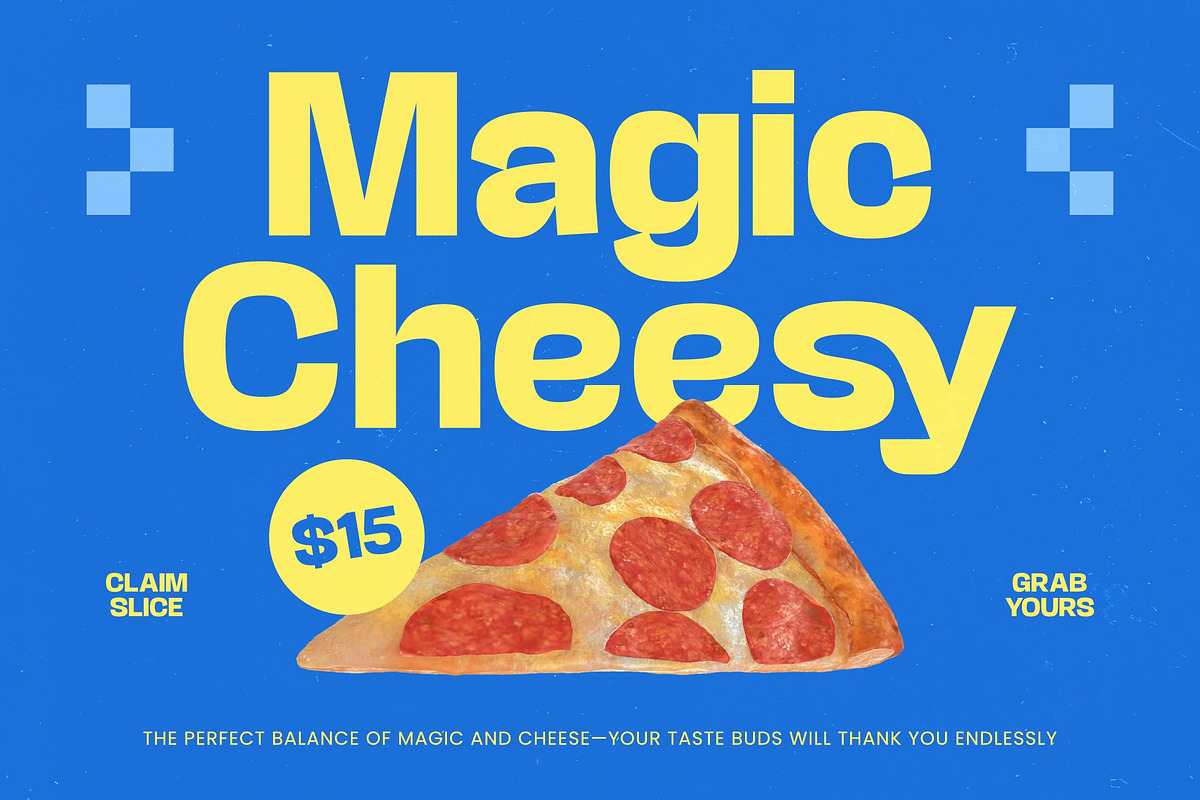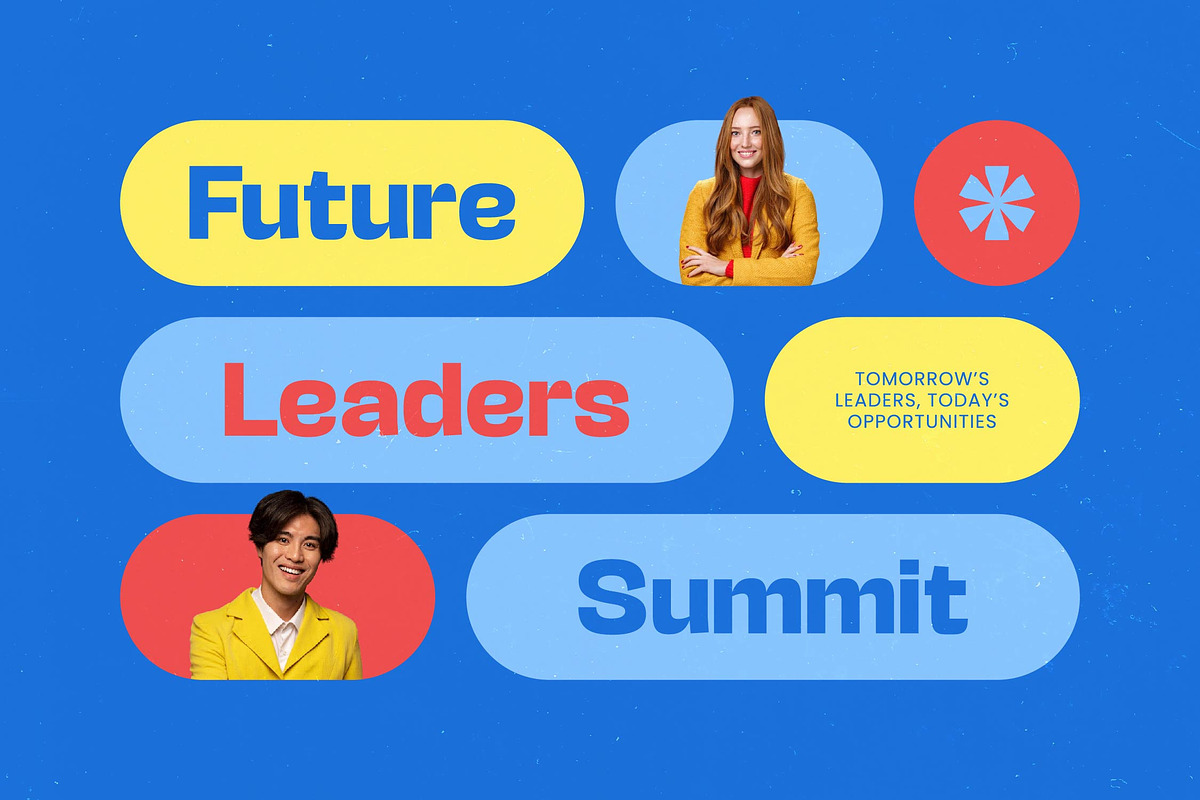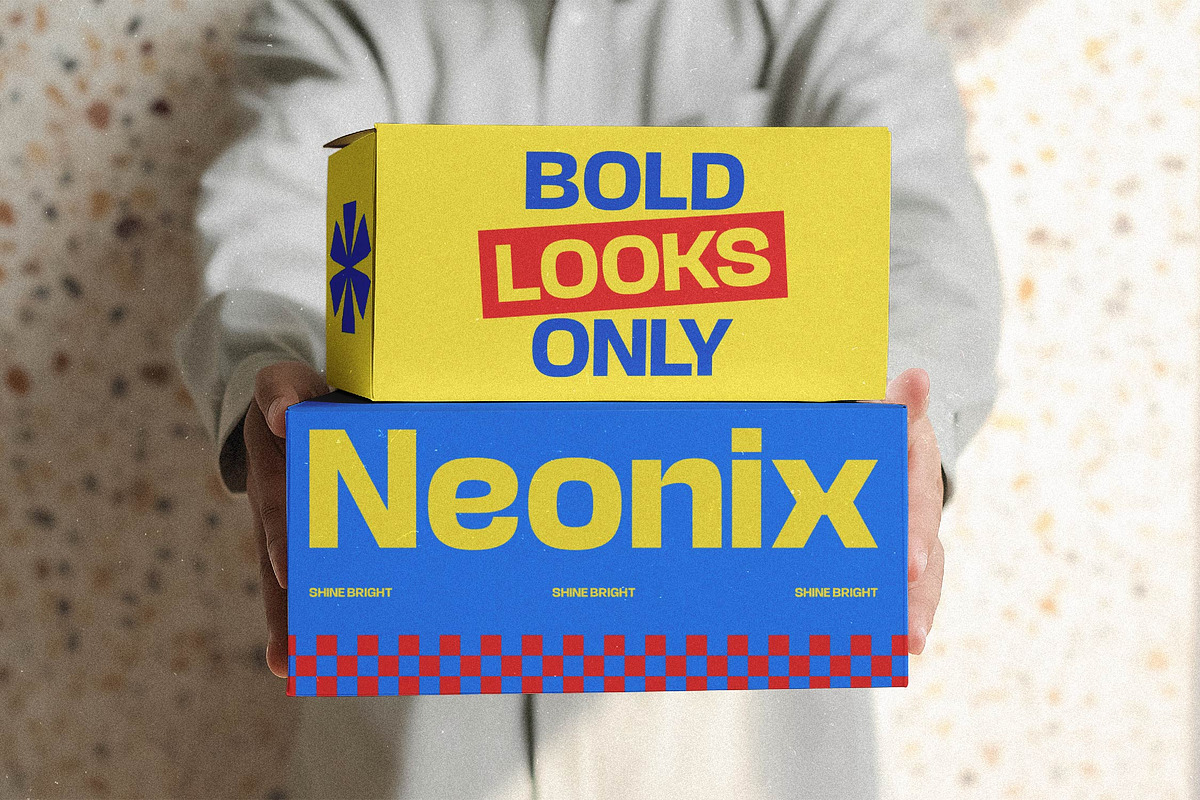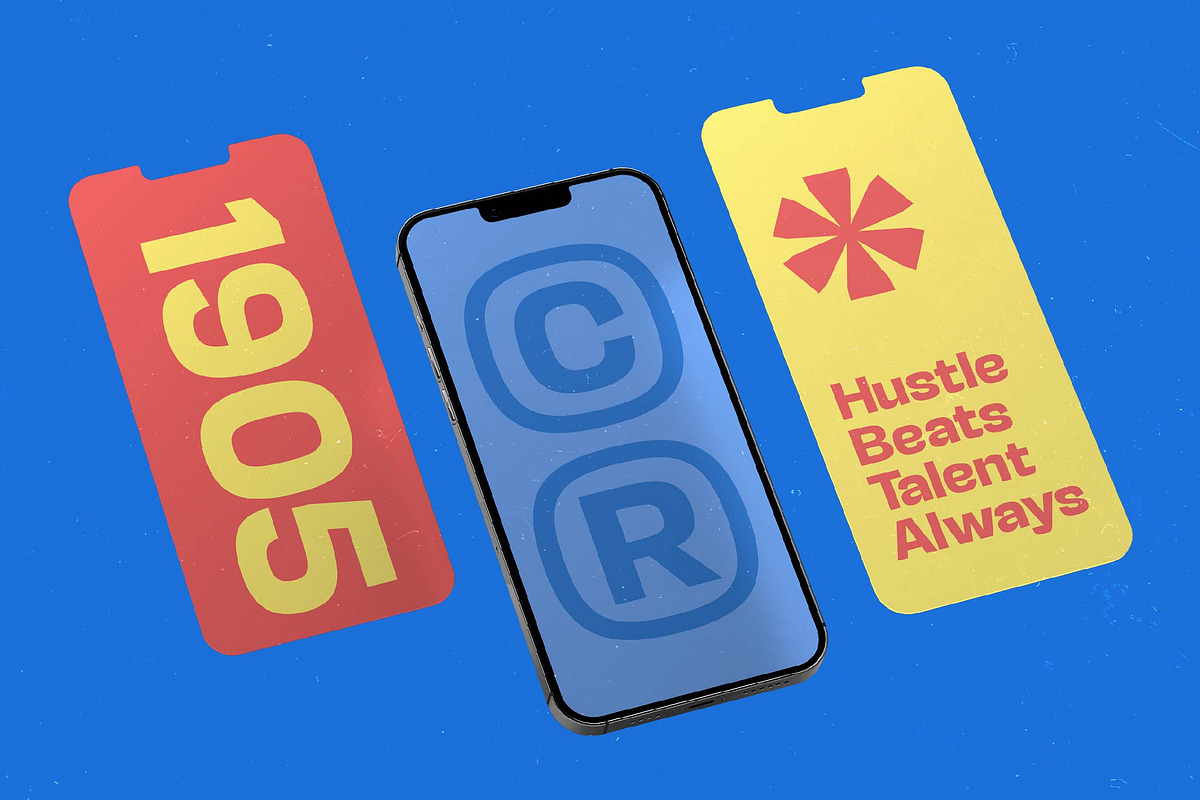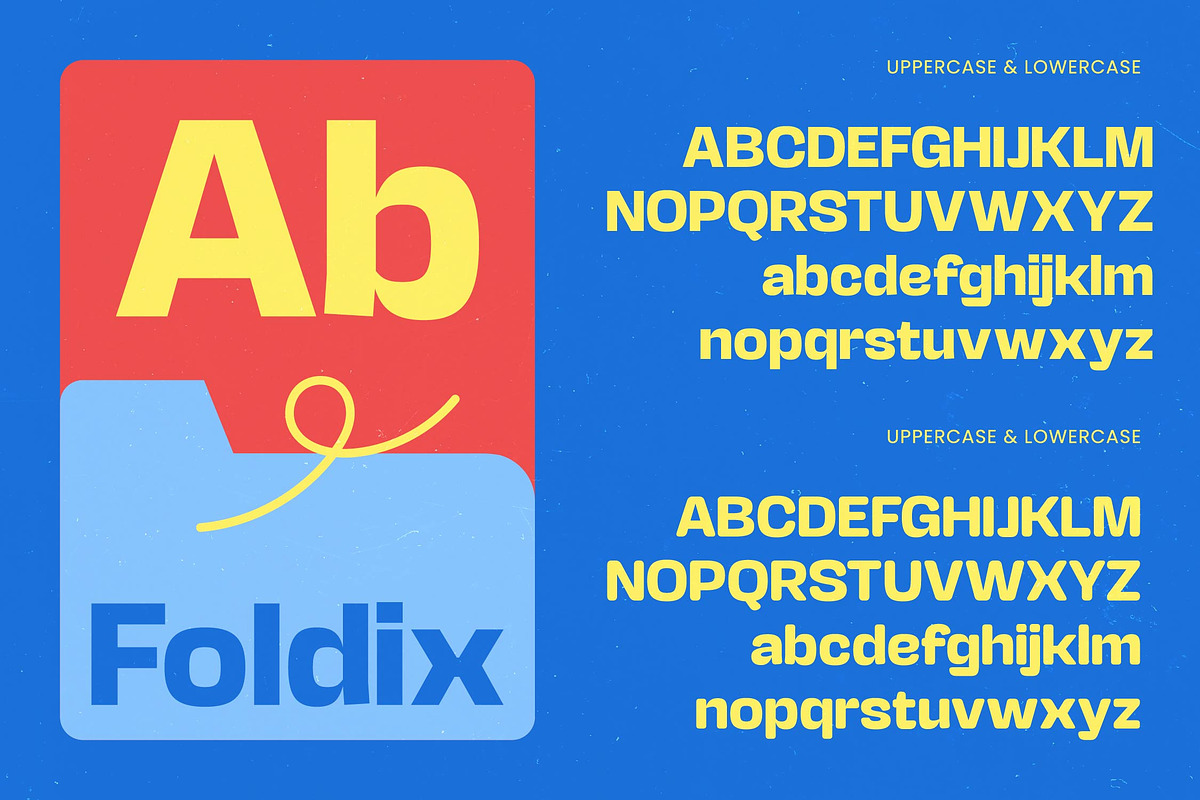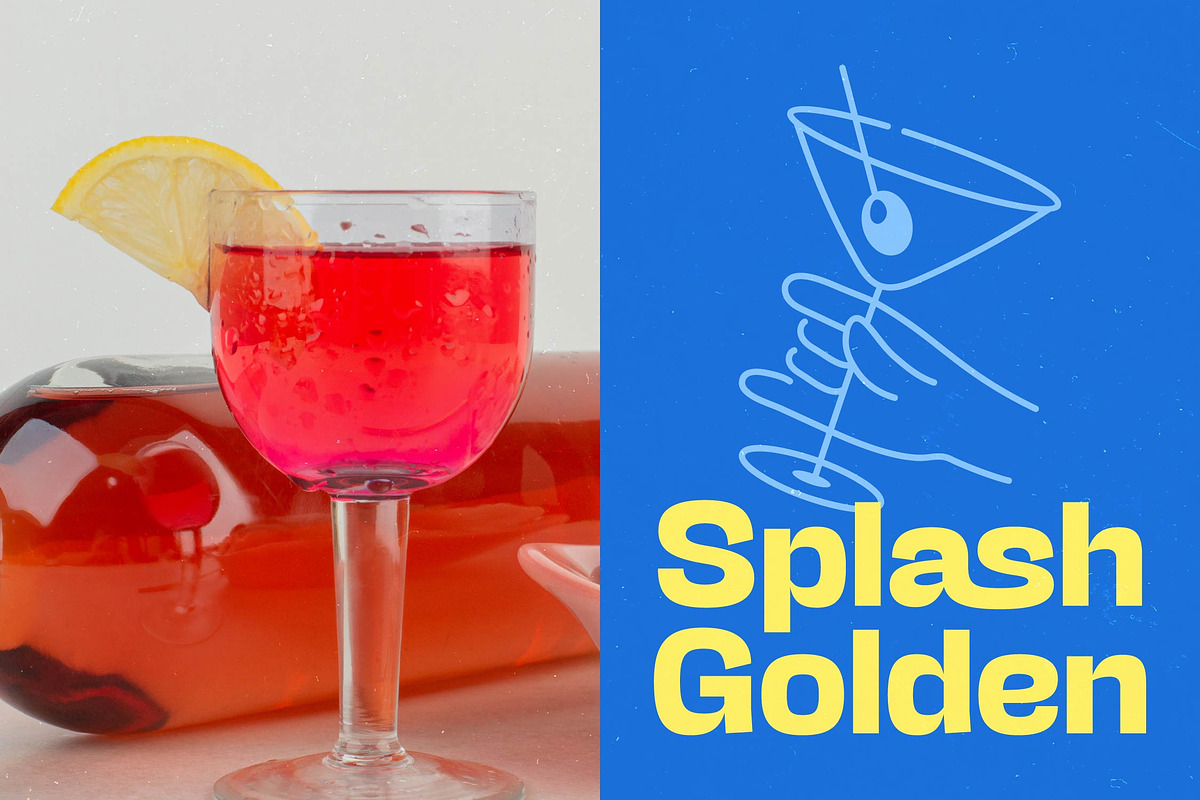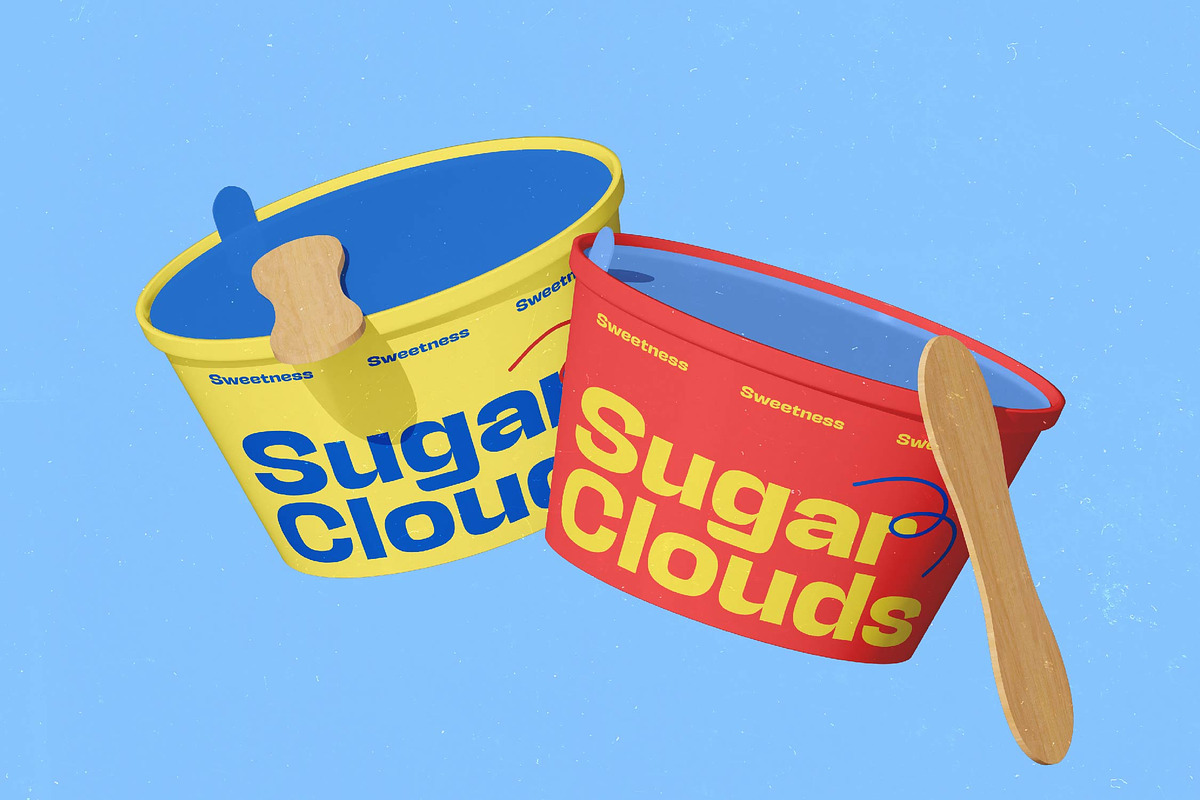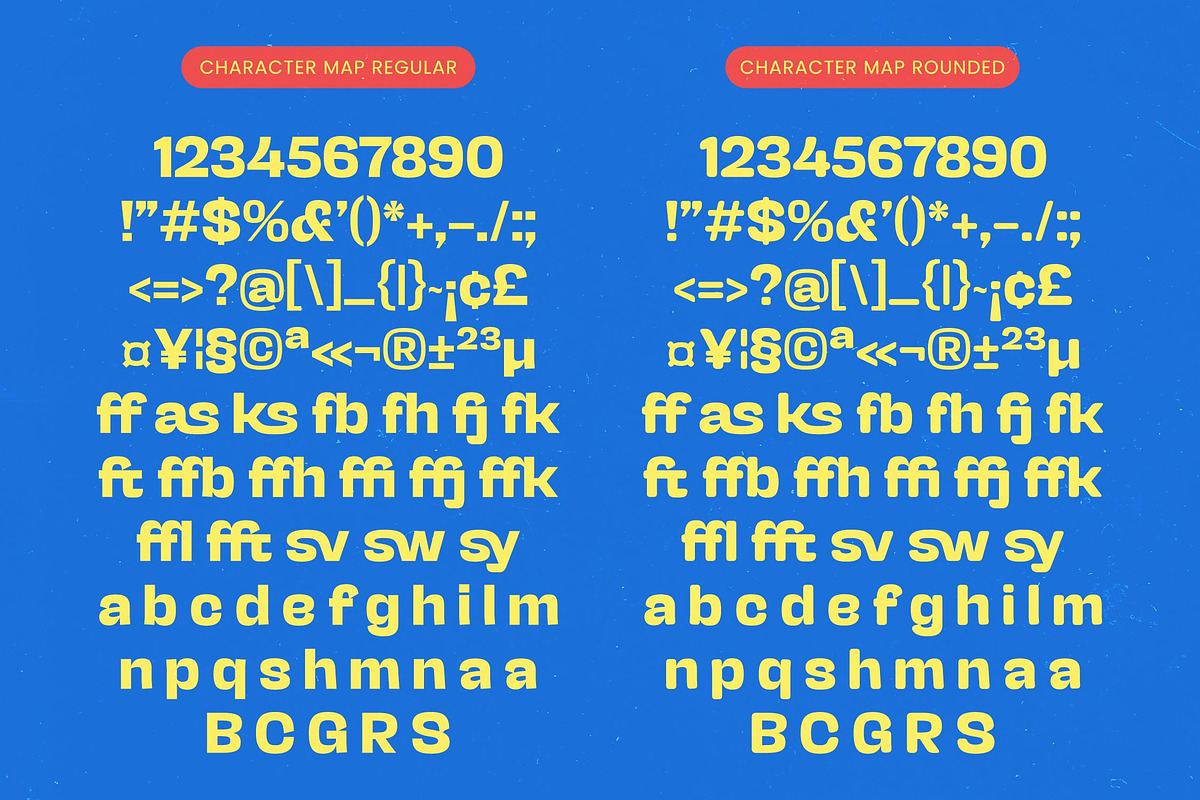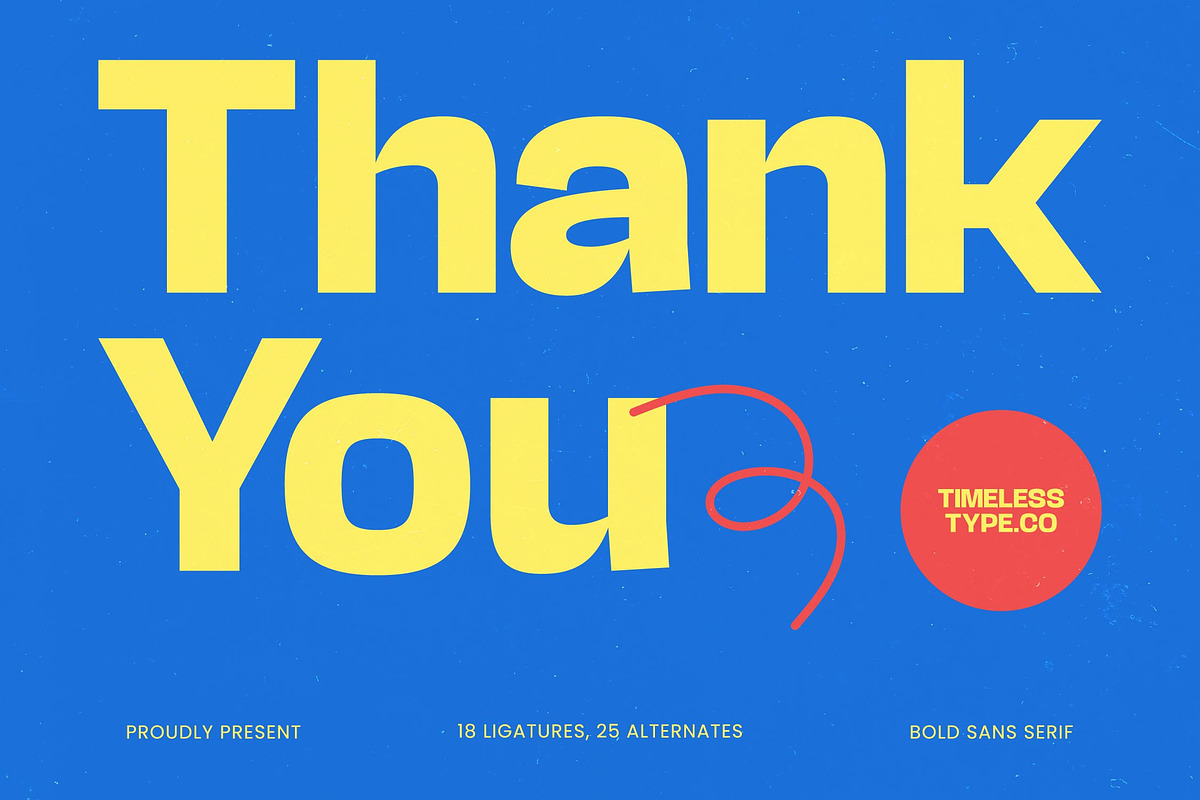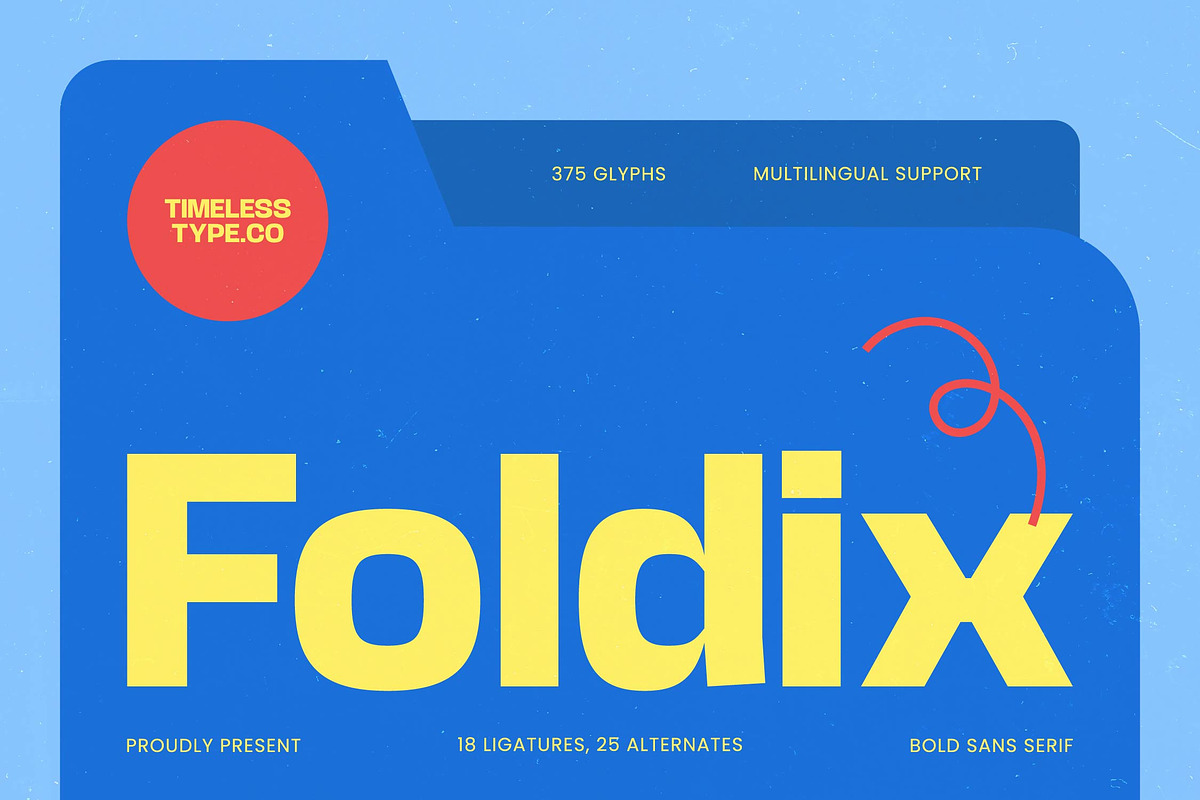
Foldix Bold Sans Serif
Foldix – Bold Sans Serif , Foldix is more than just a typeface; it is a bold statement of clarity and confidence designed to elevate your visual storytelling to new heights. This font captures the essence of contemporary minimalism, offering a sturdy yet approachable presence that commands attention while remaining incredibly easy to read.
Inspired by the clean lines of geometric efficiency and structural simplicity, the design reflects a perfect balance between architectural integrity and fluid, friendly motion. It channels the energy of modern creative workspaces, creating a visual atmosphere that feels both professionally polished and vibrantly alive.
Exuding a sense of refined power, this modern sans display is engineered for maximum branding impact and clear communication in any medium. Its thick strokes and optional rounded terminals make it an essential editorial font for creators seeking high-impact typography that bridges the gap between functional utility and expressive art.
Staying ahead of the modern sans trend, this typeface embraces the movement toward character-driven typography and bold, accessible aesthetics. It aligns perfectly with the current shift in editorial display fonts where legibility meets a distinct, memorable personality that stands out in a crowded digital or print landscape.
This versatile tool is an ideal choice for high-end logo design and comprehensive branding projects that require a unique visual identity. Its robust nature makes it perfect for editorial layouts, standout packaging, and even minimalist fashion lookbooks where every character needs to make a lasting, professional impression.
Each style is packed with professional features including unique ligatures and creative alternates that allow for custom typographic flourishes. With extensive multilingual support and a full set of international characters, it ensures your message resonates across global borders with seamless technical precision.